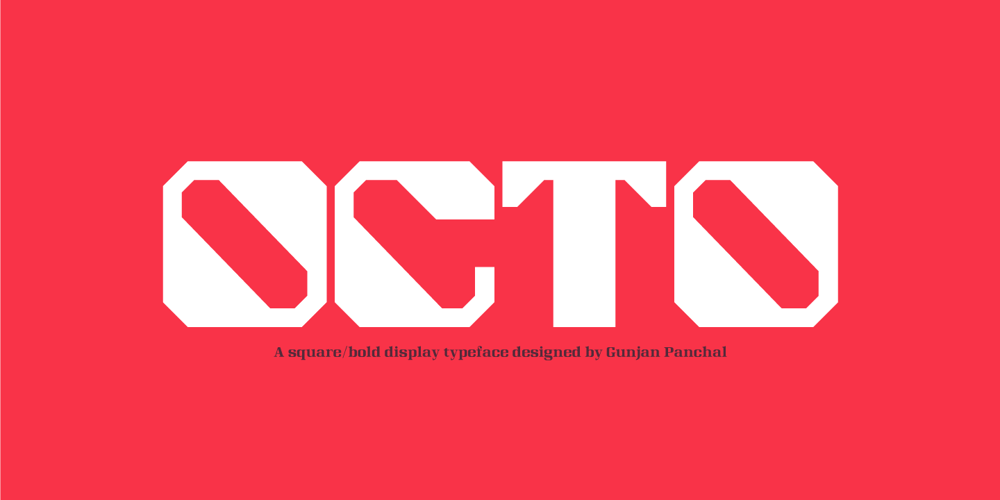
Octo Font Family was designed by Gunjan Panchal and published by Gunjan. Octo contains 2 styles and family package options. Octo is square bold/display font with italics. Letterform is bit quirky and square shaped, it can fill all kind of spaces. Octo has nice form that relate to industrial, machines and italics helps denoting speed. Octo is good for branding in fields of sports, automobile. It has full glyph set of numerals and signs. Octo is an excellent choice for headline-typesetting and logo design. Octo is developed by Gunjan Panchal based in India.